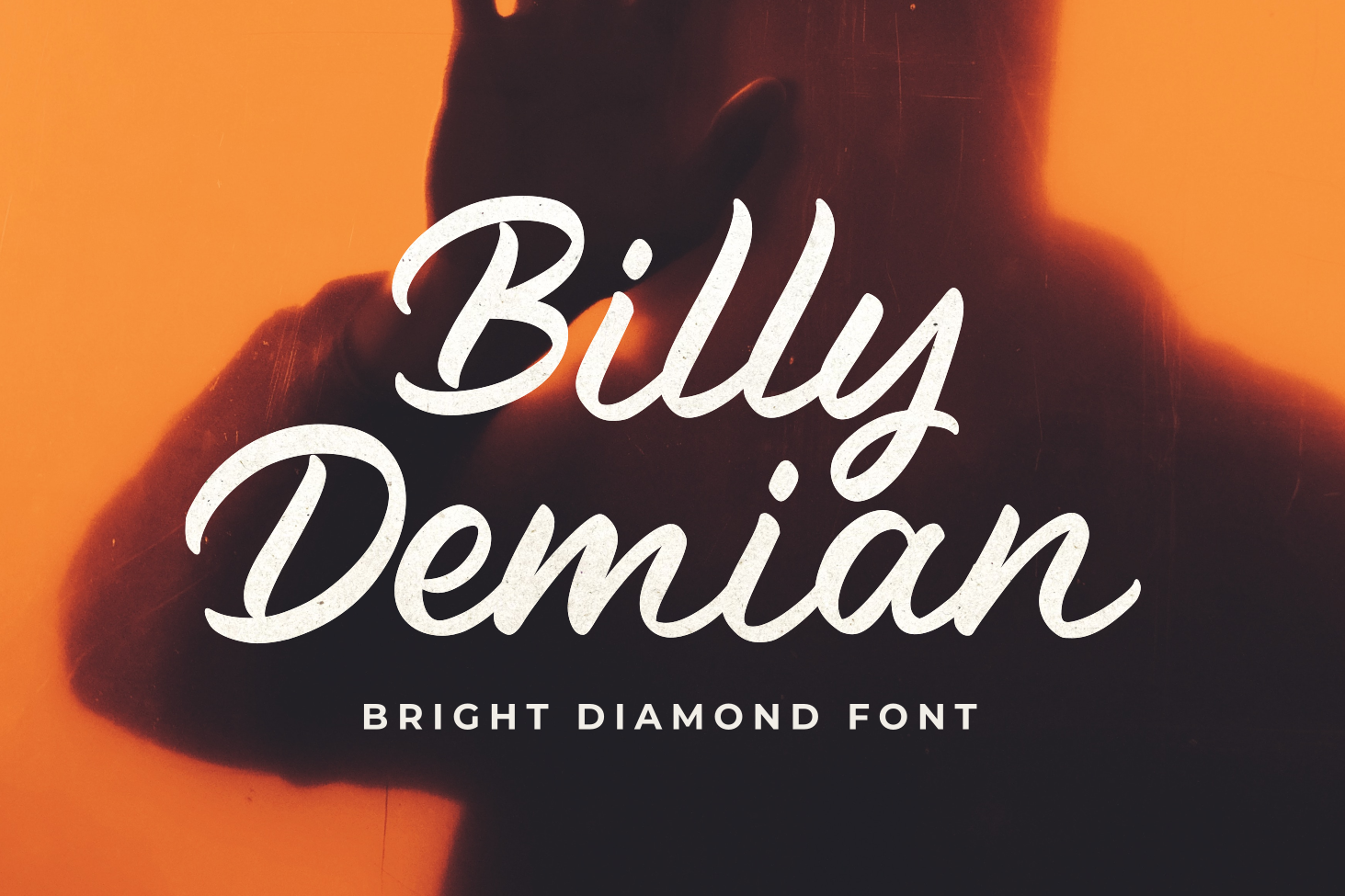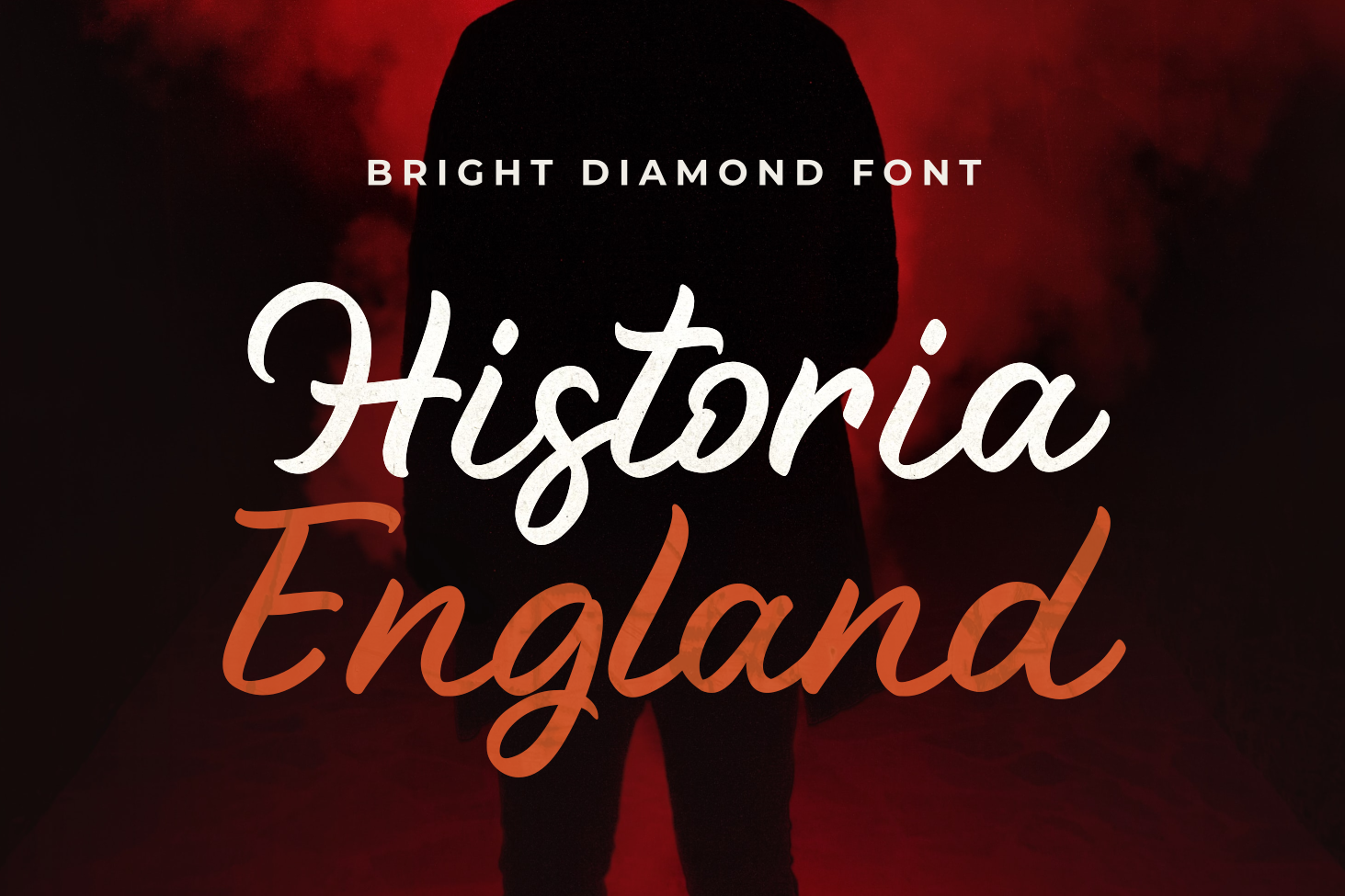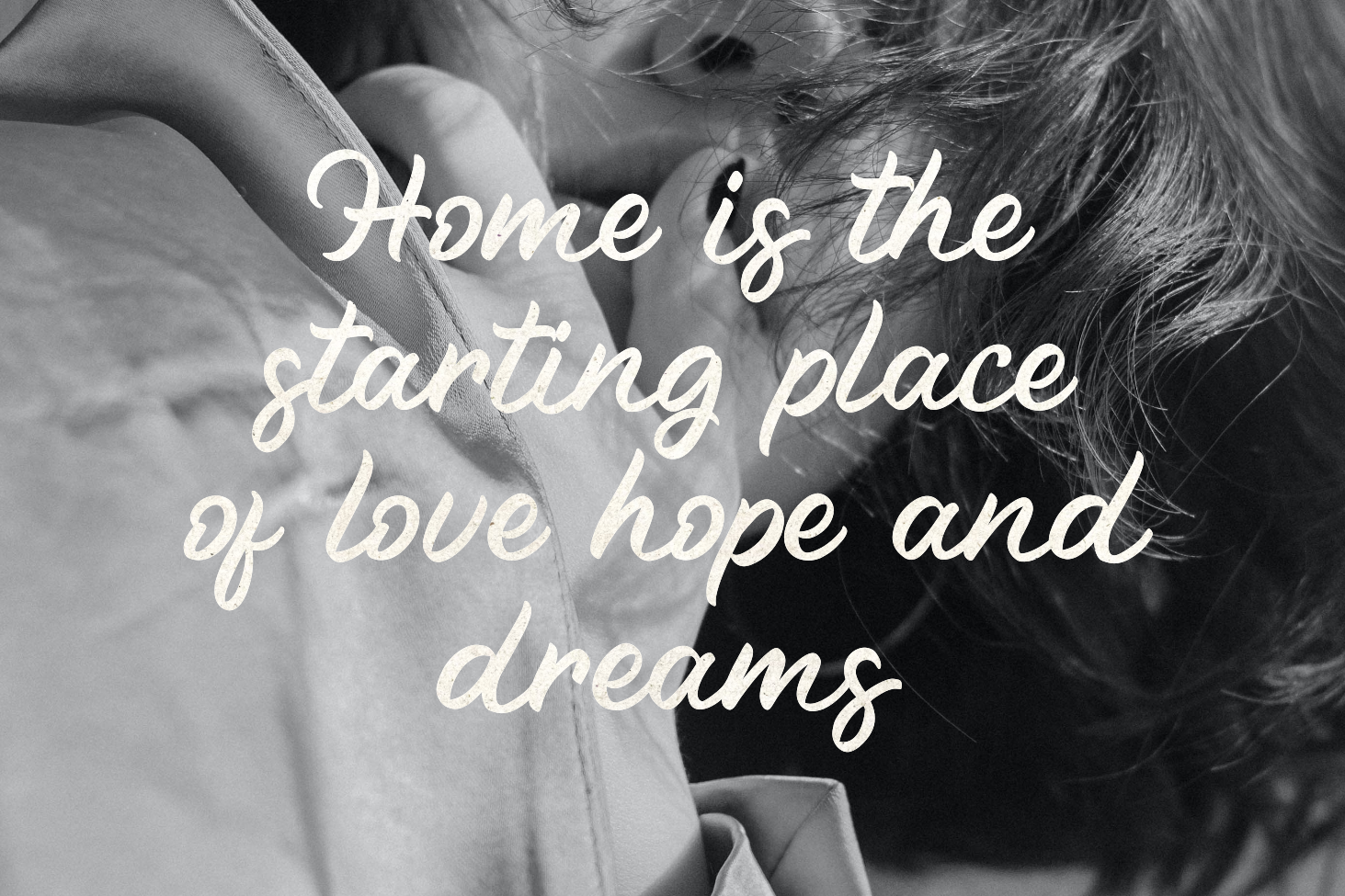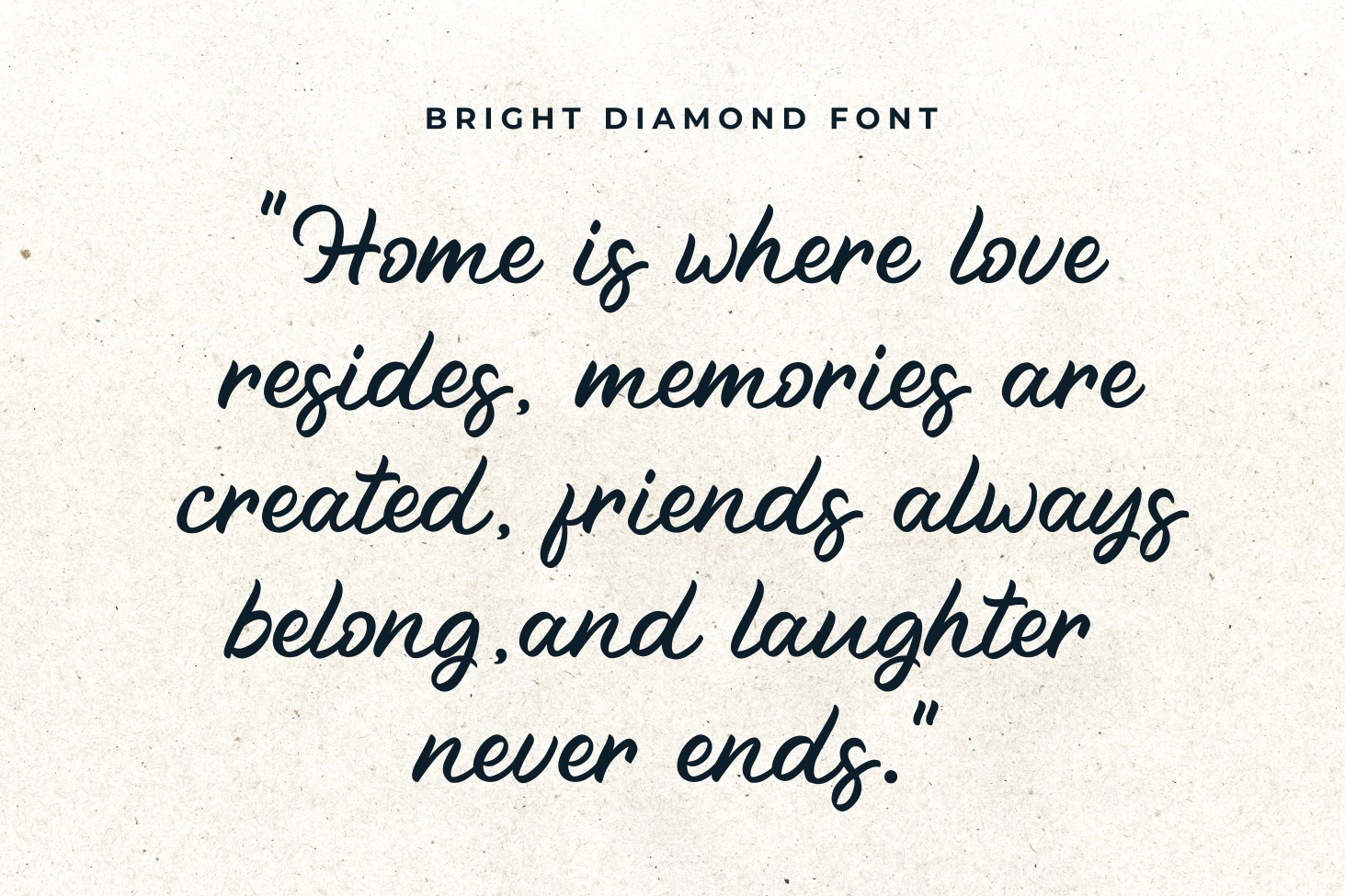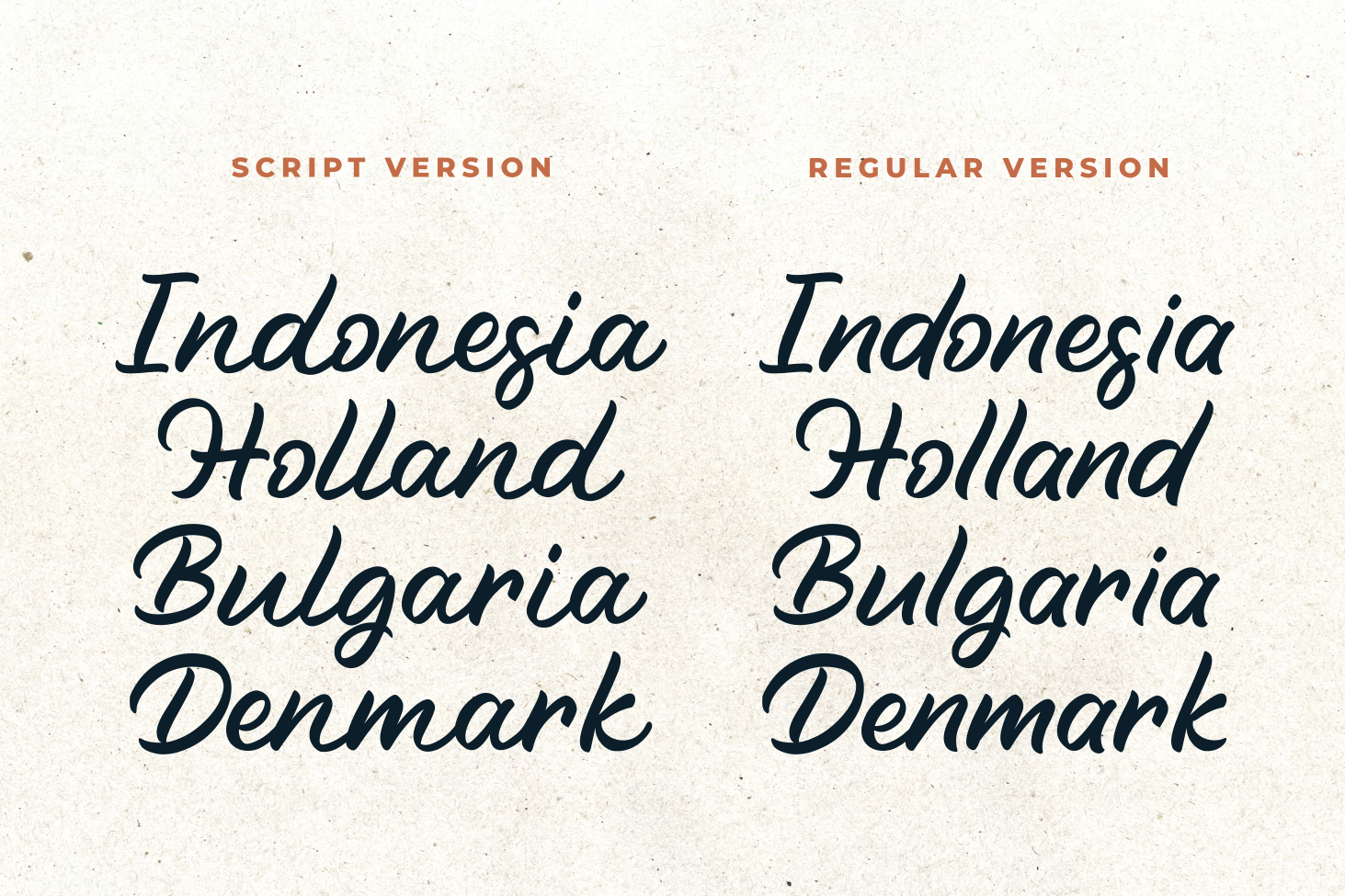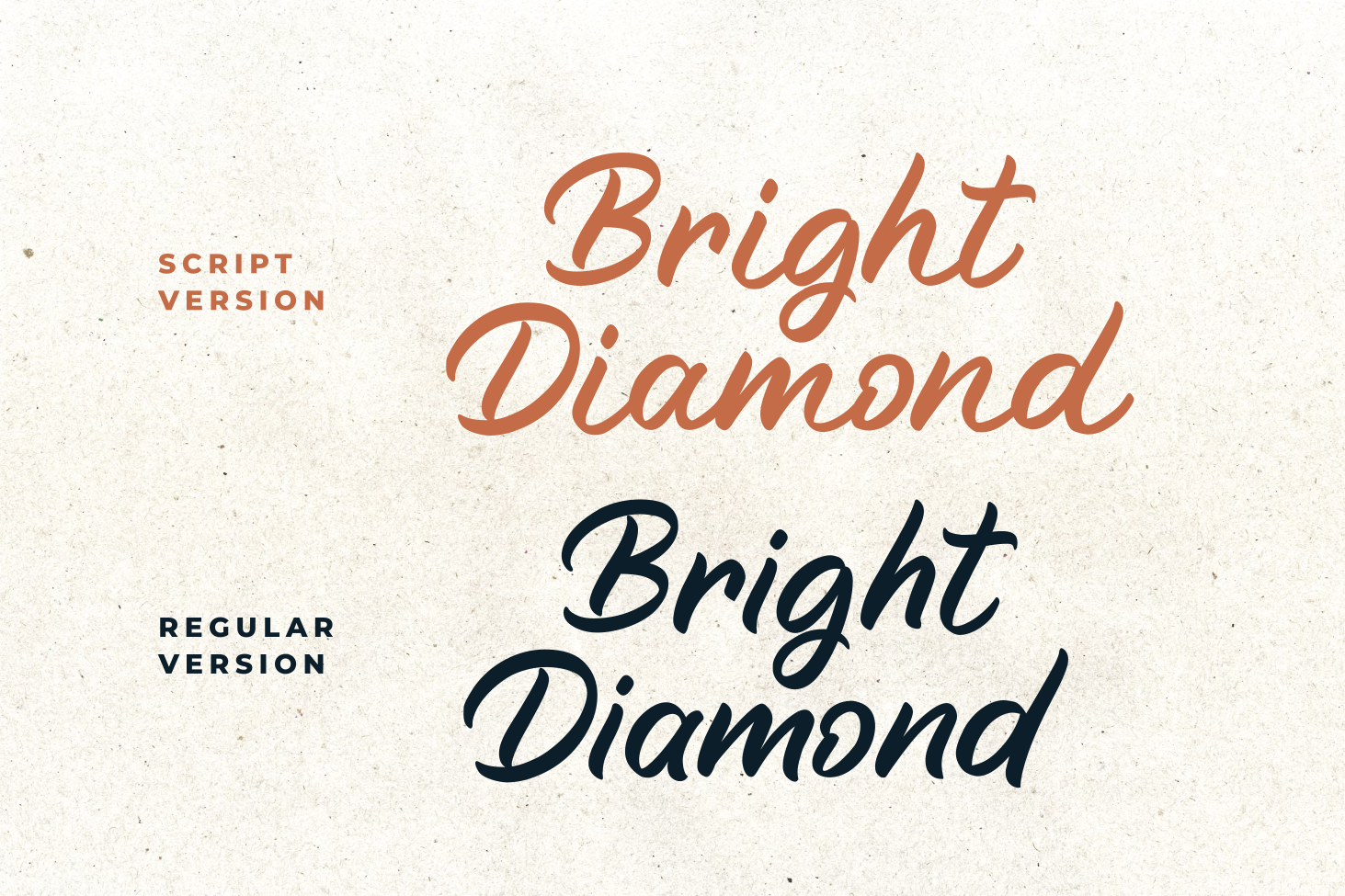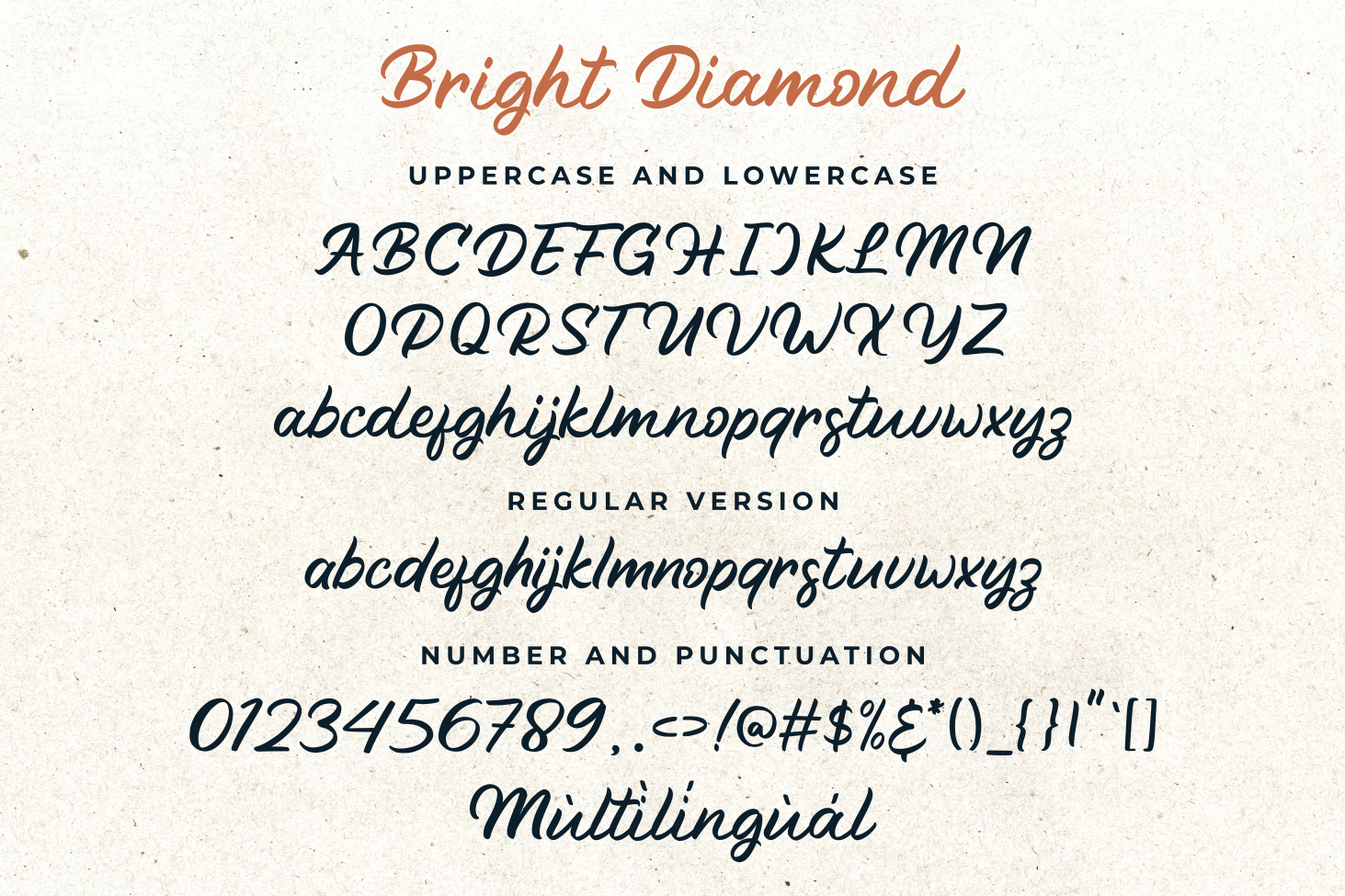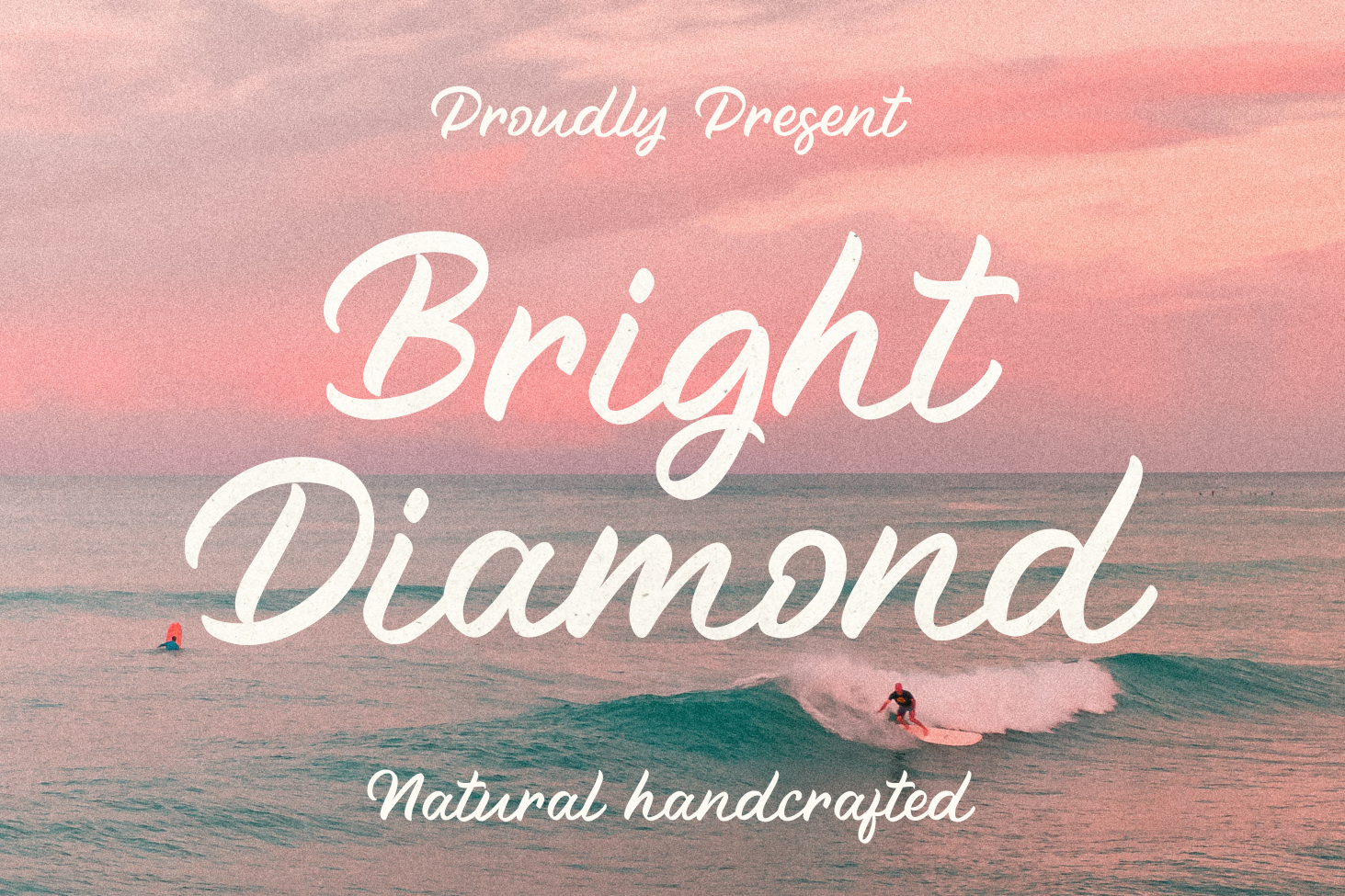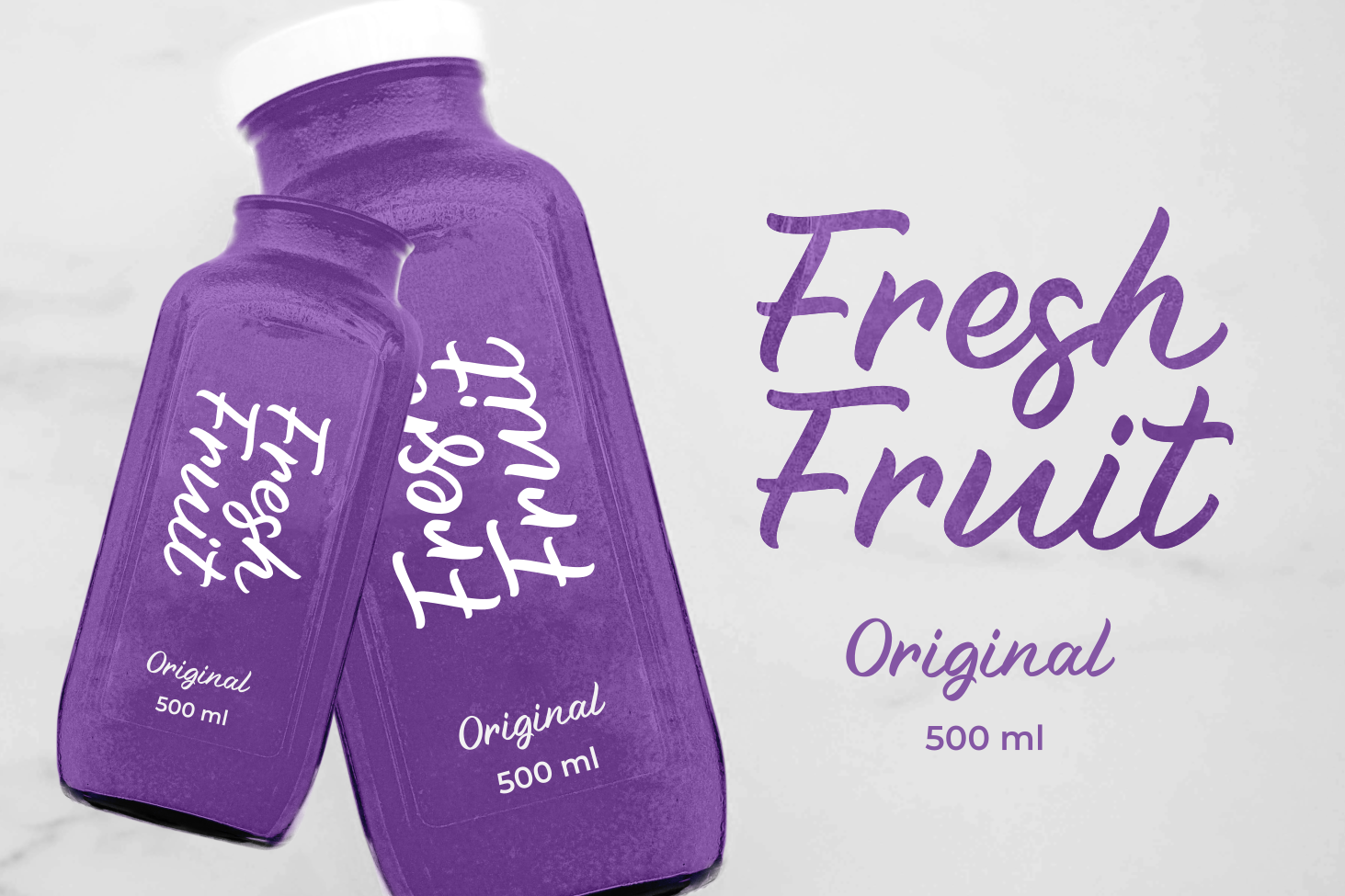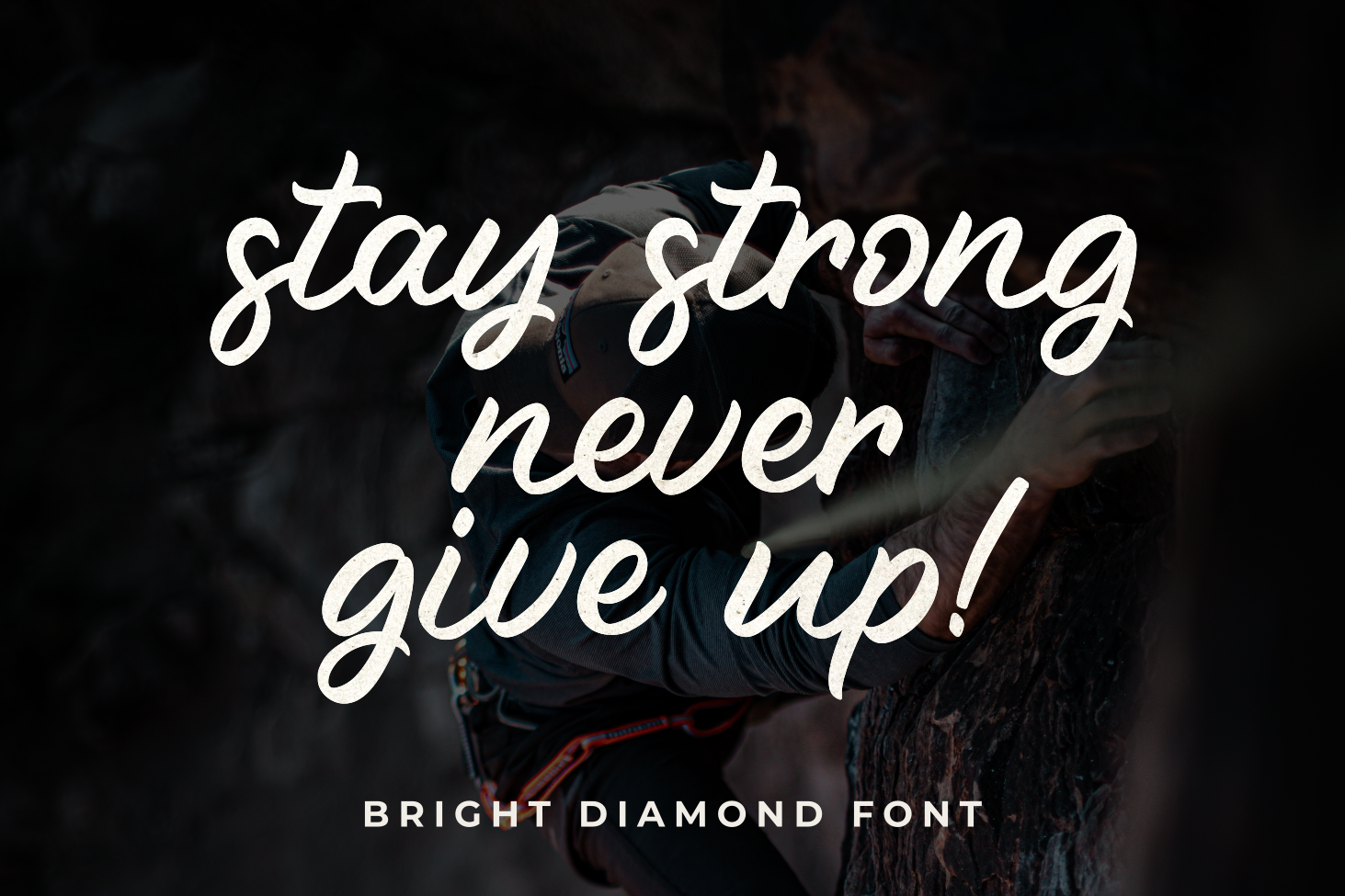
Bright Diamond
zeenesia
Bright Diamond by zeenesia - Handwritten Font Bright Diamond is a script and regular handwritten font with a simple and classy style, this font is great for your next creative projects such as watermark on photography, logo design, wedding, invitation, quotes, book cover, business card, and many other design project. From business cards to photo watermarks.